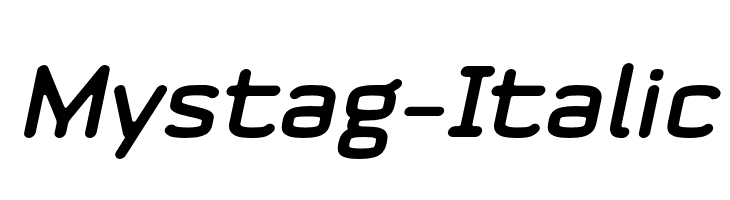
A sleek, italicized font with a modern and dynamic style.
A modern, italicized font with a sleek and dynamic appearance.
A bold, angular font with a geometric and modern design.
A bold, italicized font with sharp, angular edges and a dynamic, futuristic style.
A modern, geometric font with clean lines and a futuristic aesthetic.